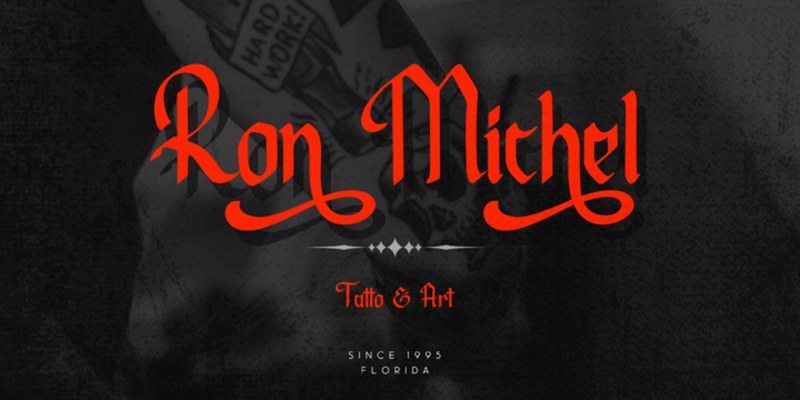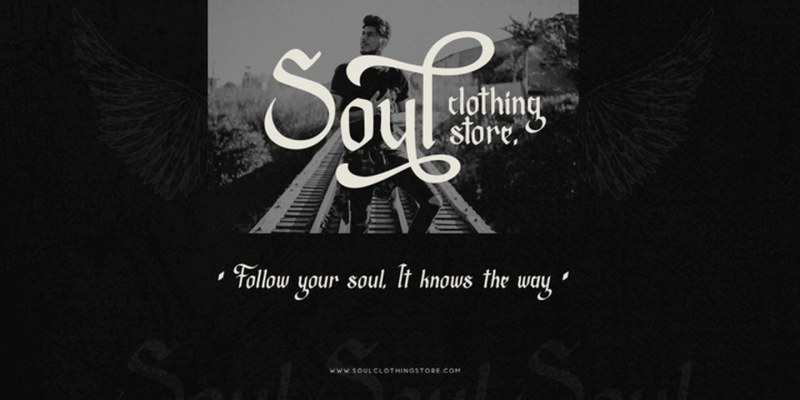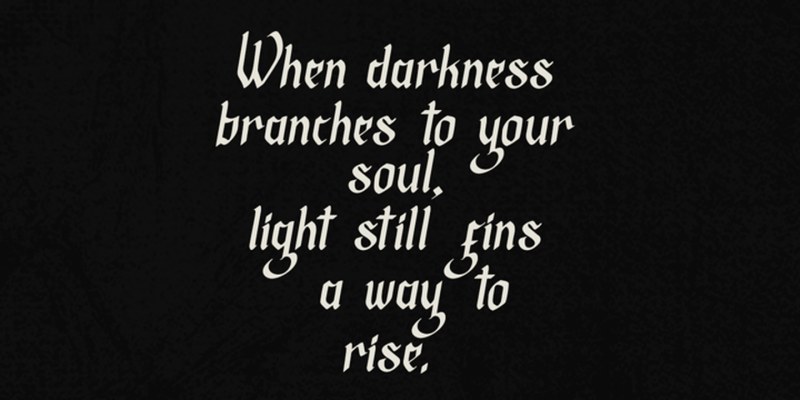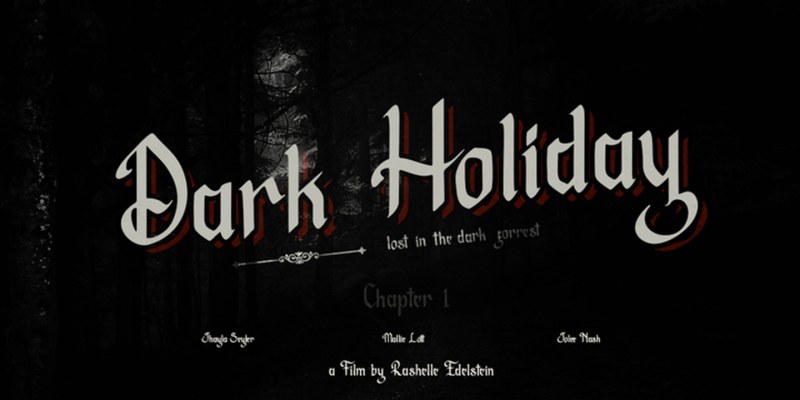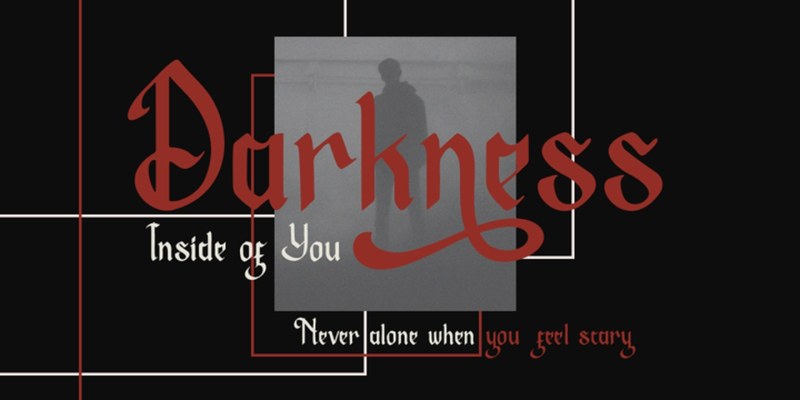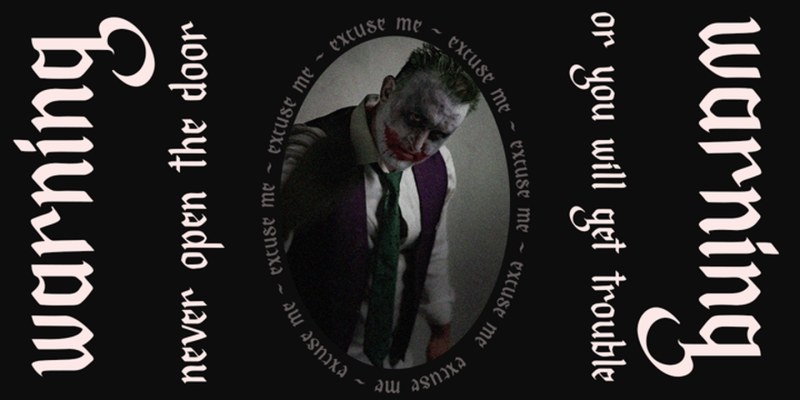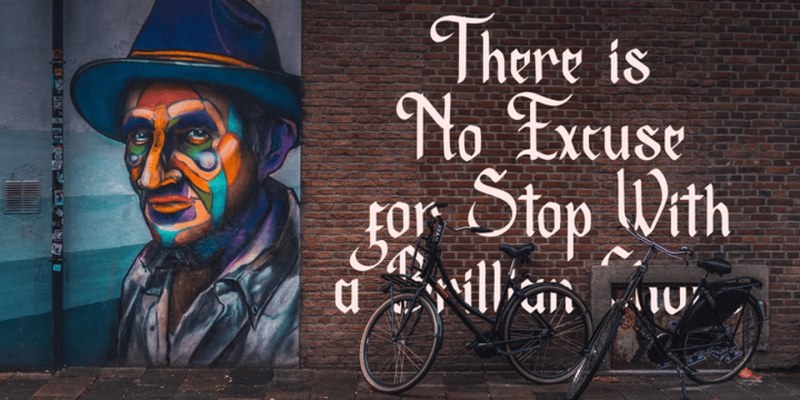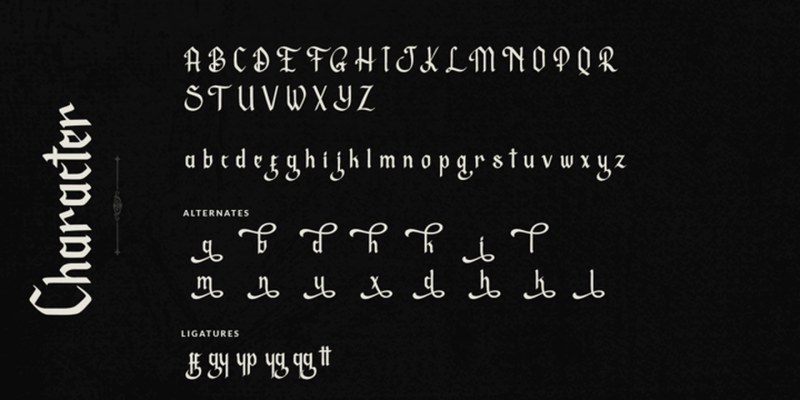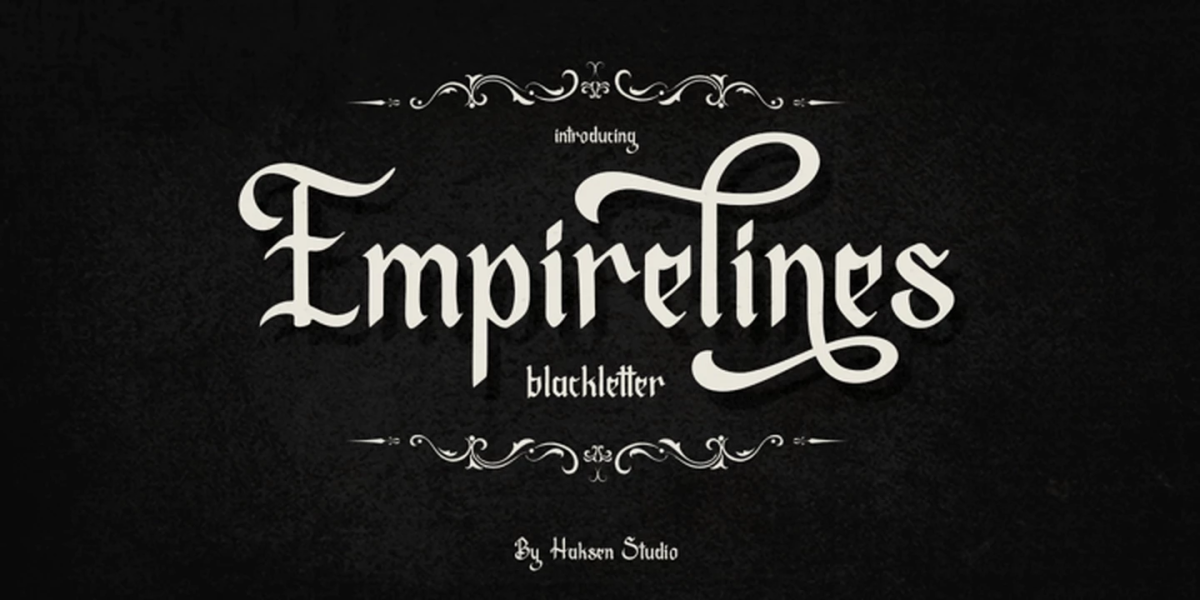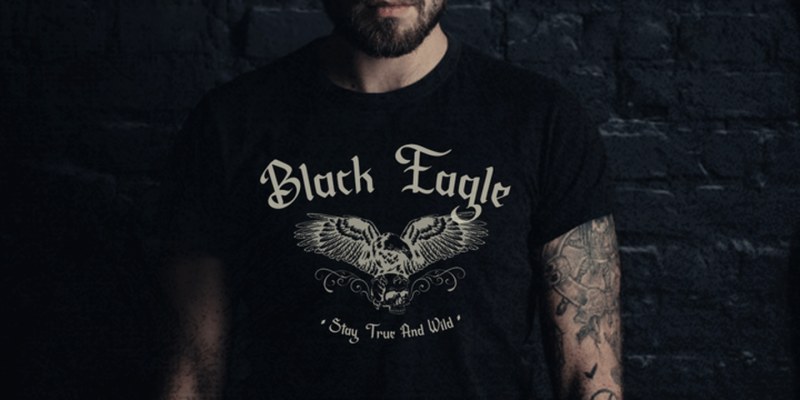
Empirelines Font Family
Empirelines are the family of blackletter style with Uppercase and Lowercase feel nice balanced. Provide alternates font in lowercase variant style make the design lette…
Empirelines are the family of blackletter style with Uppercase and Lowercase feel nice balanced. Provide alternates font in lowercase variant style make the design letter looks incredible. Honestly it works perfectly for headlines, logos, posters, packaging, T-shirts and much more. Recommended to use in Adobe Illustrator or Adobe Photoshop with opentype feature.
Where Empirelines Font Family works best
Empirelines Font Family is built for size: event posters, hero headlines and billboard-style layouts.
High contrast display type like Empirelines Font Family reads instantly in thumbnails and motion graphics.
What is Empirelines Font Family good for?